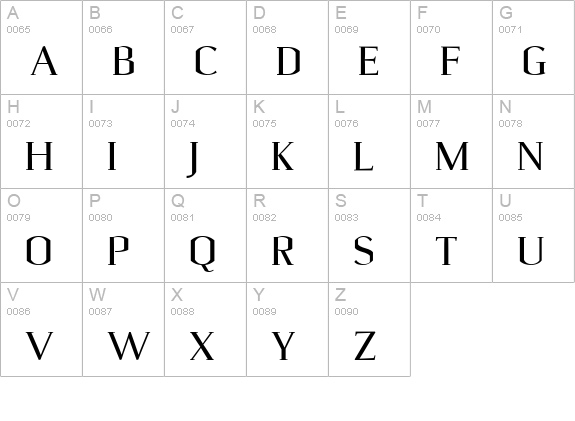
Ulian Font Details
The Ulian font is a modern and elegant typeface that exudes sophistication and style. With its sleek lines and graceful curves, this font is perfect for adding a touch of class to any design project. Whether you're creating a logo, website, or invitation, Ulian will make your text stand out and leave a lasting impression. What's even better is that Ulian font is available for free! You can easily download this beautiful font at FontsMarket.com and start using it in your projects right away. Don't miss out on the opportunity to enhance your designs with the timeless beauty of Ulian font. Download it now and elevate your typography game to the next level.